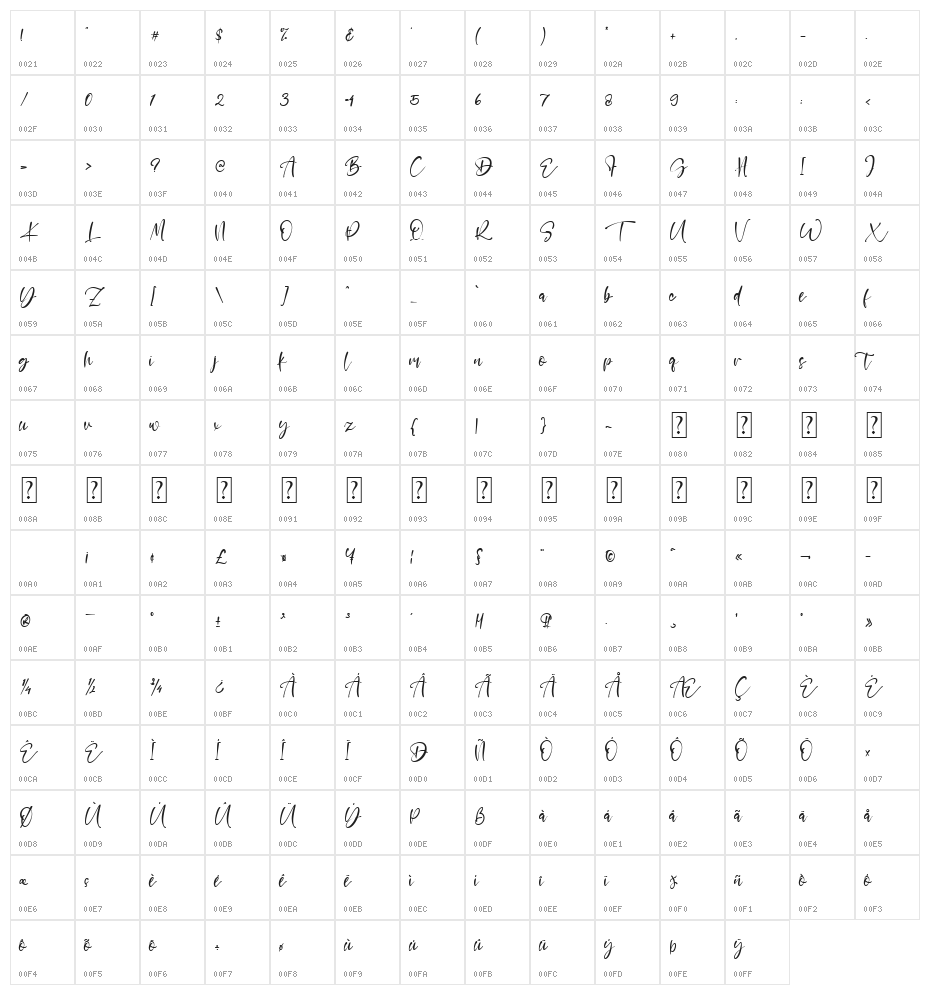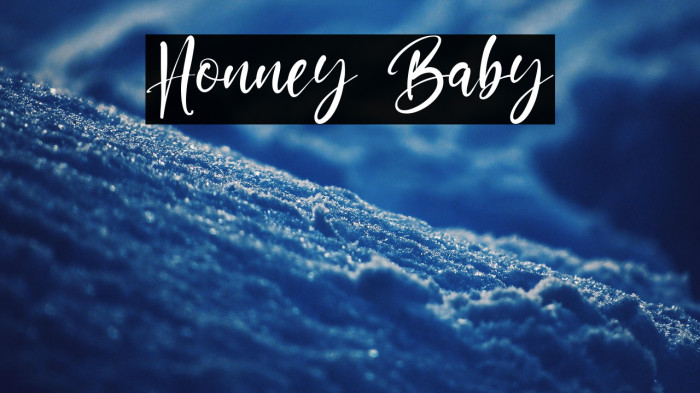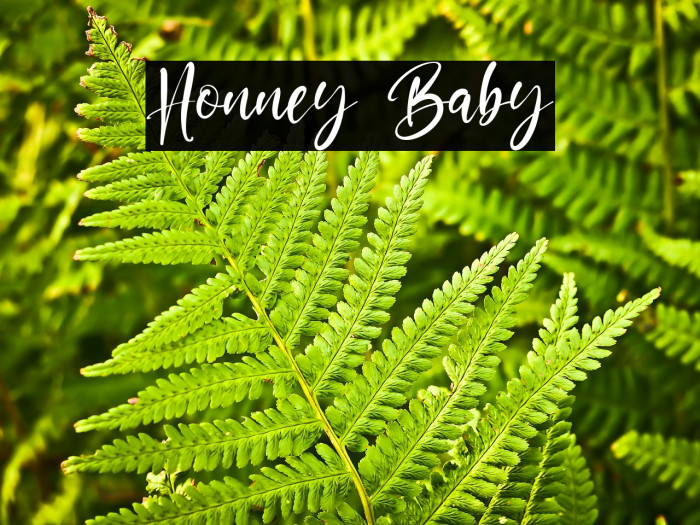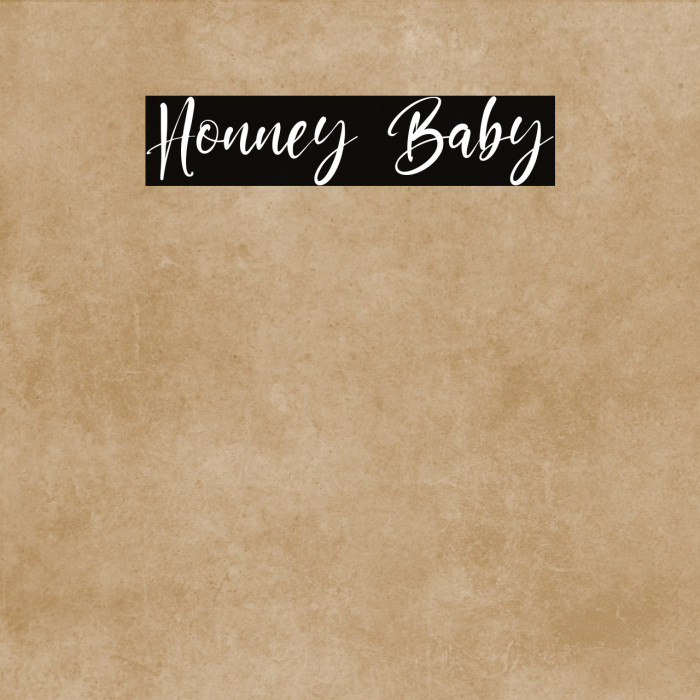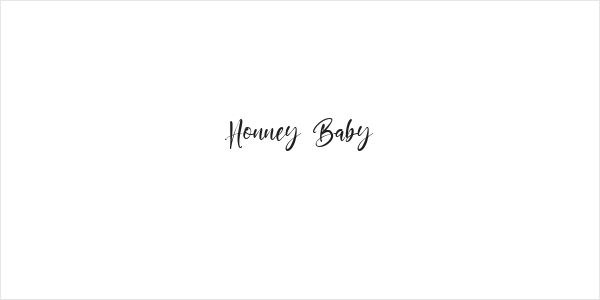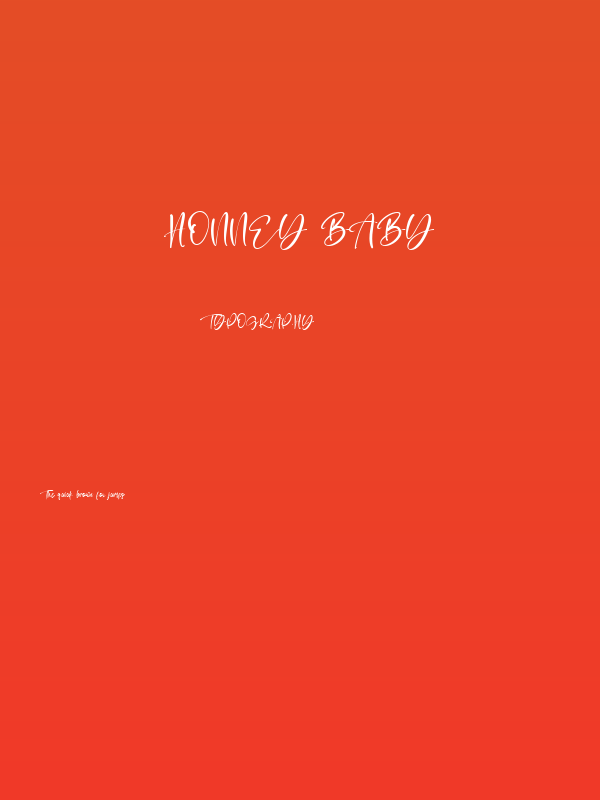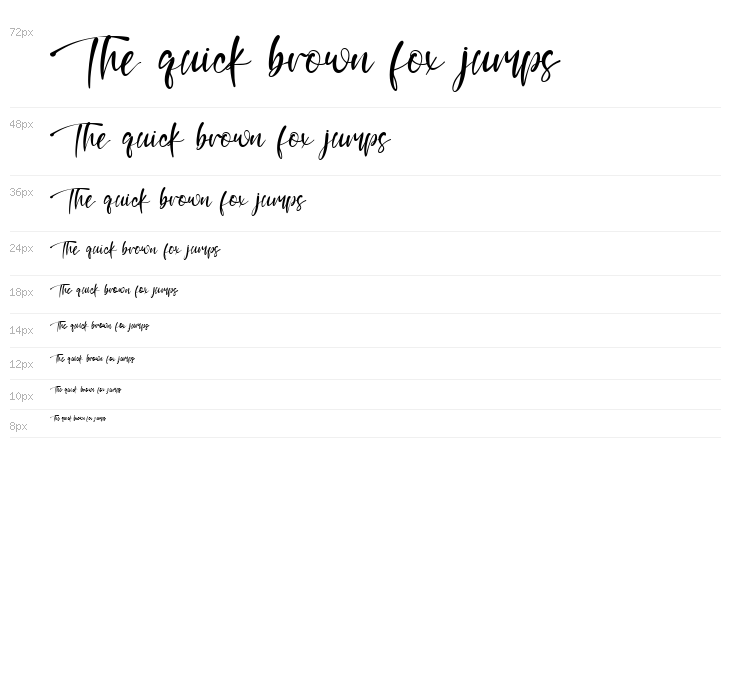
Honney Baby Font
Honney Baby Description
This font exudes a playful and elegant charm, characterized by its flowing script style. The letters are connected with smooth, sweeping strokes that give it a handwritten appearance. The uppercase letters are bold and expressive, while the lowercase letters maintain a consistent flow, enhancing readability. The numbers and special characters are crafted with the same attention to detail, ensuring a cohesive look across all elements. This font's unique style makes it suitable for creative and artistic projects, where a touch of personality and flair is desired.